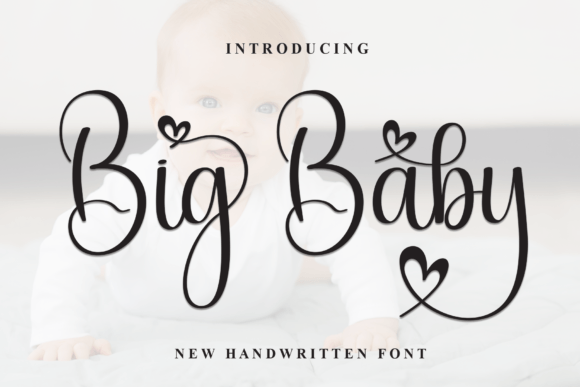
Introducing Big Baby Font: The Ultimate Whimsical Handwritten Font
Are you looking for a font that can add a touch of sweetness and friendliness to your designs? Look no further than Big Baby Font, a charming and whimsical handwritten font that’s perfect for bringing a sense of fun and playfulness to your projects. In this article, we’ll take a closer look at what makes Big Baby Font so special and how you can use it to elevate your designs.
The Characteristics of Big Baby Font
Big Baby Font is a delightful and adorable font that’s designed to capture the essence of a sweet and friendly sentiment. Its whimsical and handwritten style makes it perfect for adding a personal touch to your designs, whether you’re creating wedding invites, greeting cards, or any other type of project. The font’s playful and casual vibe is sure to bring a smile to anyone’s face, making it an excellent choice for designers and crafters who want to add a bit of fun and personality to their work.
Uses for Big Baby Font
Big Baby Font is incredibly versatile and can be used for a wide range of design projects. Here are just a few ideas to get you started:
- Wedding Invites: Add a touch of whimsy and romance to your wedding invitations with Big Baby Font. Its sweet and friendly sentiment is perfect for couples who want to set the tone for a fun and playful wedding celebration.
- Greeting Cards: Create one-of-a-kind greeting cards for birthdays, holidays, and other special occasions with Big Baby Font. Its playful and cheerful vibe is sure to bring a smile to the recipient’s face.
- Social Media Graphics: Use Big Baby Font to add a personal touch to your social media graphics, whether you’re creating posts for Instagram, Facebook, or Twitter.
- Branding and Packaging: Add a bit of whimsy and personality to your brand’s packaging and marketing materials with Big Baby Font. Its unique and playful style is sure to help your brand stand out.
Benefits of Using Big Baby Font
So why choose Big Baby Font for your design projects? Here are just a few benefits of using this delightful font:
- Unique and Playful Style: Big Baby Font has a one-of-a-kind style that’s sure to add a touch of personality to your designs.
- Easy to Read: Despite its playful and whimsical style, Big Baby Font is incredibly easy to read, making it perfect for use in a wide range of design projects.
- Versatile: Big Baby Font can be used for everything from wedding invites to social media graphics, making it a great addition to any designer’s toolkit.
- Time-Saving: With Big Baby Font, you can add a professional and polished touch to your designs in no time. Its pre-designed characters and glyphs make it easy to create beautiful text-based designs quickly and easily.
Tips for Using Big Baby Font
Here are a few tips for getting the most out of Big Baby Font:
- Experiment with Different Colors: Big Baby Font looks great in a wide range of colors, so don’t be afraid to experiment and find the perfect hue for your design.
- Mix and Match with Other Fonts: Big Baby Font pairs perfectly with a wide range of other fonts, so feel free to get creative and mix and match to find the perfect combination for your design.
- Use it Sparingly: While Big Baby Font is incredibly versatile, it’s best used sparingly. Try using it as an accent font to add a touch of personality to your design.
Big Baby Font is a charming and whimsical handwritten font that’s perfect for designers and crafters who want to add a touch of sweetness and friendliness to their designs. Its playful and casual vibe makes it perfect for a wide range of projects, from wedding invites to social media graphics. With its unique and playful style, ease of use, and versatility, Big Baby Font is sure to become a favorite in your design toolkit. So why wait? Download Big Baby Font today and start adding a sprinkle of joyfulness and an inviting warmth to your designs!